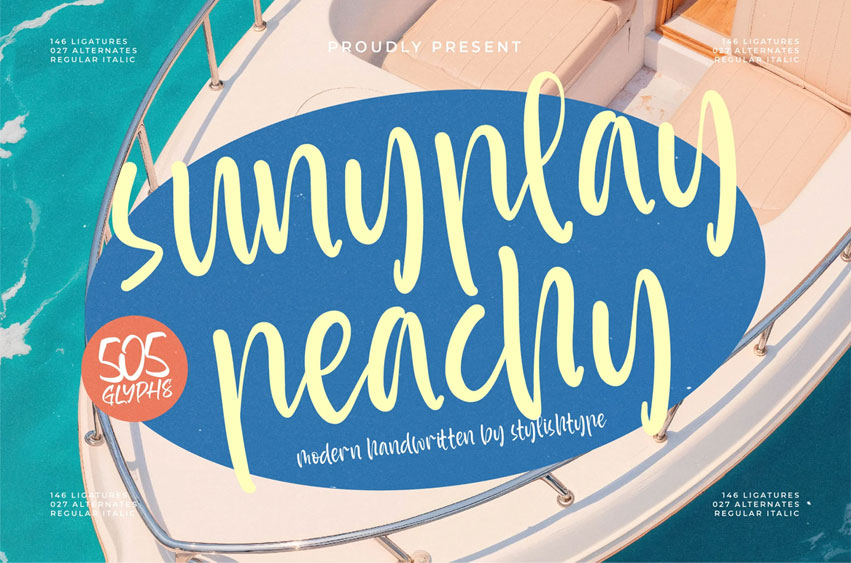
Sunyplay Peachy Font
Sunyplay Peachy Font is a modern handwritten font filled with warmth, playfulness, and a carefree summer spirit. With its smooth strokes, casual movement, and friendly handwritten charm, this typeface is perfect for designers who want to bring lighthearted energy into their projects.
Packed with 505 glyphs, including 146 ligatures and 27 alternates (plus Regular & Italic styles), Sunnyplay Peachy offers endless variety for logos, quotes, social media graphics, lifestyle branding, packaging, and colorful creative campaigns. Its bright, breezy personality makes it ideal for beach themes, travel content, joyful product labels, and any design that needs an uplifting handwritten touch.